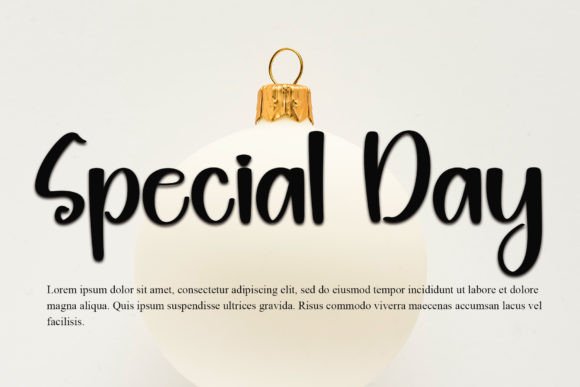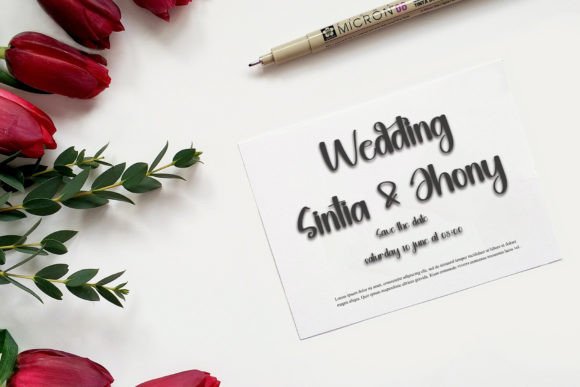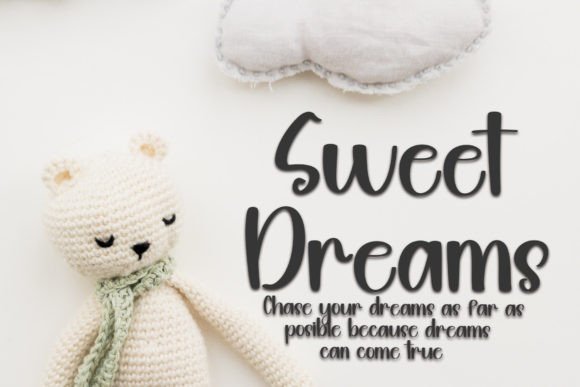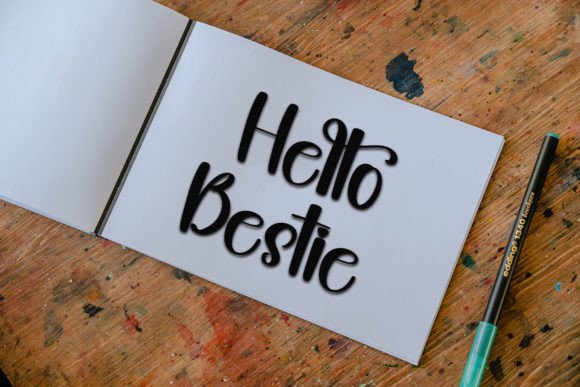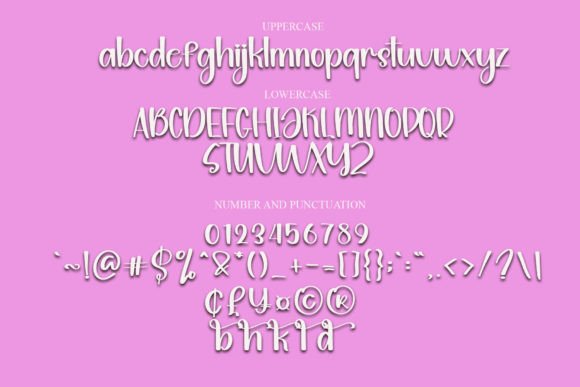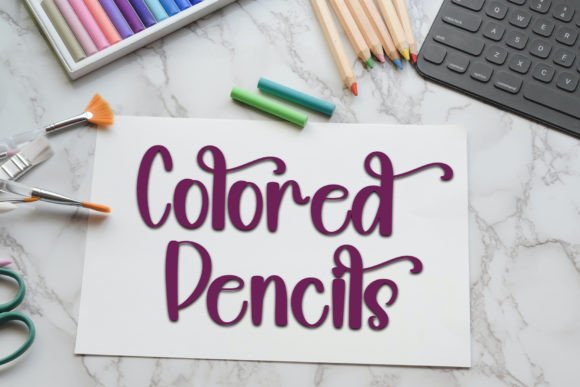
Introducing Boarding Font: The Perfect Blend of Playfulness and Friendliness
Are you tired of using the same old fonts in your designs? Look no further than Boarding Font, a cute script font that’s sure to add a cheerful and casual touch to any project. With its bouncy and rounded letterforms, Boarding Font exudes a sense of playfulness and friendliness that’s perfect for designs that need a youthful and approachable vibe.
The Characteristics of Boarding Font
So, what makes Boarding Font so special? For starters, its smooth and legible style makes it easy to read and understand, even at smaller font sizes. This is perfect for designs that need to convey a message or tell a story, such as posters, flyers, or social media graphics. Additionally, the font’s rounded letterforms give it a soft and cuddly feel that’s sure to appeal to designers and crafters who are looking for a font that’s a little bit different.
The Benefits of Using Boarding Font
So, why should you choose Boarding Font for your next design project? Here are just a few benefits of using this charming font:
- Playfulness: Boarding Font’s bouncy and rounded letterforms create a sense of playfulness and fun, making it perfect for designs that need to appeal to a younger audience.
- Friendliness: The font’s smooth and legible style adds a charming personal feel to any project, making it perfect for designs that need to convey a sense of approachability and warmth.
- Versatility: Boarding Font is a versatile font that can be used in a wide range of design applications, from posters and flyers to social media graphics and branding materials.
How to Use Boarding Font in Your Designs
So, how can you use Boarding Font in your designs? Here are a few ideas to get you started:
- Pair it with bold colors: Boarding Font looks amazing when paired with bold, bright colors. Try using it in combination with a bold color scheme to create a fun and playful design.
- Use it for headings: Boarding Font is perfect for headings and titles, where its playful and cheerful energy can really shine.
- Add some texture: Consider adding some texture to your design to give it a more organic and handmade feel. This can be especially effective when used in combination with Boarding Font.
Design Inspiration: Using Boarding Font in Different Contexts
To give you a better sense of how Boarding Font can be used in different contexts, let’s take a look at a few design inspiration examples:
- Wedding invitations: Boarding Font would be perfect for wedding invitations or other wedding stationery, where its playful and romantic energy can shine.
- Children’s designs: The font’s playful and cheerful energy makes it perfect for designs aimed at children, such as children’s books, posters, or games.
- Branding: Boarding Font could be used as a logo font or in branding materials, such as business cards or letterheads, to add a touch of personality and approachability.
In conclusion, Boarding Font is a charming script font that’s perfect for designers and crafters who are looking for a font that’s a little bit different. With its bouncy and rounded letterforms, smooth and legible style, and playful and cheerful energy, Boarding Font is sure to add a youthful and approachable touch to any design project. So why not give it a try and see how it can elevate your designs?